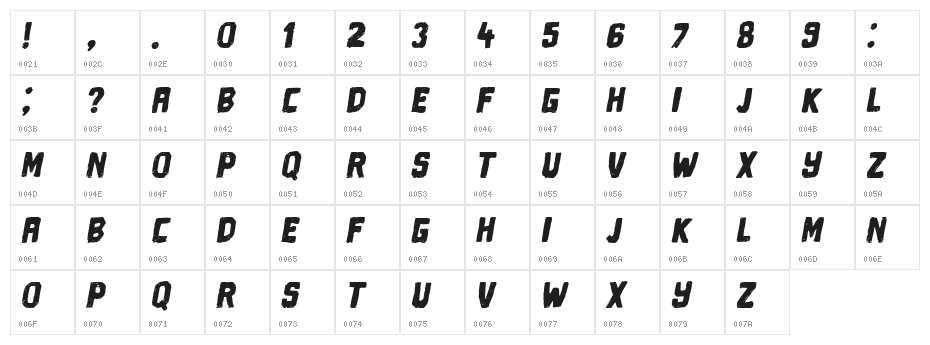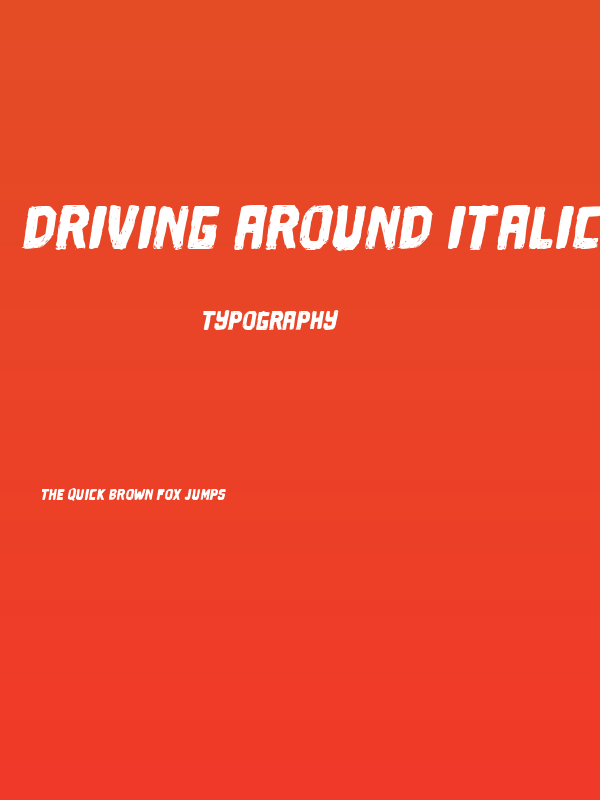
Driving Around Italic Font
Driving Around Italic Description
This font features a bold and dynamic style with a distressed, textured appearance that adds a sense of movement and energy. The characters are italicized, giving them a forward-leaning posture that enhances the feeling of speed and action. The uppercase letters are robust and impactful, while the numbers maintain the same energetic style. The font's rough edges and uneven strokes contribute to its rugged and adventurous look, making it ideal for projects that require a bold statement. The unique texture provides a handcrafted feel, suitable for designs that aim to capture attention and convey a sense of urgency or excitement.
| Overall Style | Adventurous, Energetic, Rugged |
| Proposed Projects | Ideal for posters, sports branding, action-themed graphics, and adventurous product packaging. |